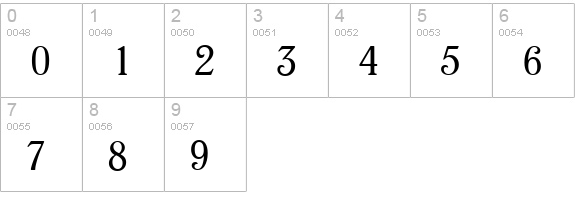
VeronaSerial-Light-Regular Font Details
VeronaSerial-Light-Regular is a refined, elegant variant in the VeronaSerial typeface family \xE2\x80\x94 well suited to elegant body text, refined sub-headings, and luxury branding.
VeronaSerial-Light-Regular is a sleek and elegant font that exudes sophistication and modernity. Its clean lines and balanced proportions make it suitable for a wide range of design projects, from branding to editorial work. The light weight of this font adds a touch of delicacy and refinement, making it perfect for conveying a sense of grace and subtlety. Best of all, VeronaSerial-Light-Regular is available for free download at FontsMarket.com. This means that you can easily access this beautiful typeface and use it in your personal or commercial projects without any cost. Don't miss out on the opportunity to enhance your designs with this timeless and versatile font. Download VeronaSerial-Light-Regular now and elevate your typography game to new heights!